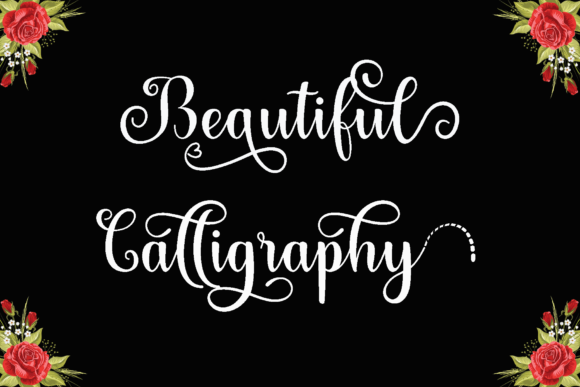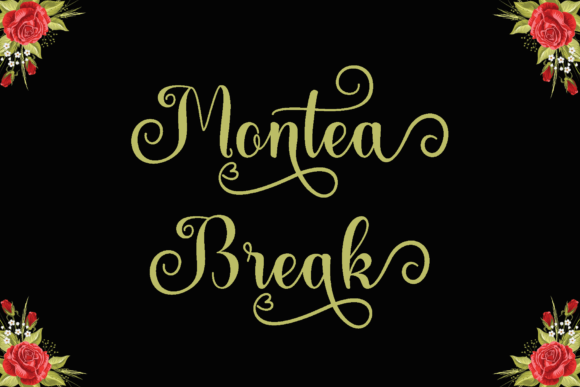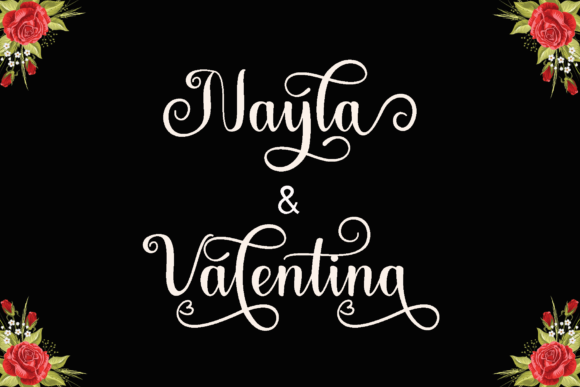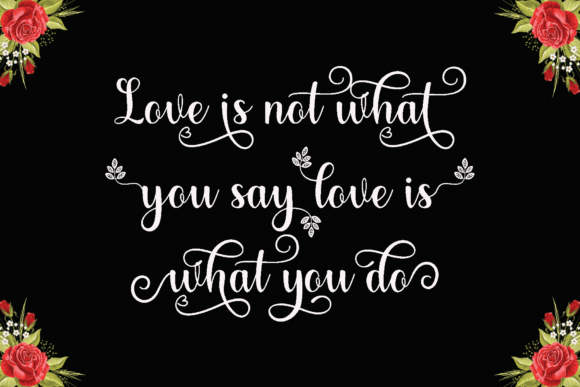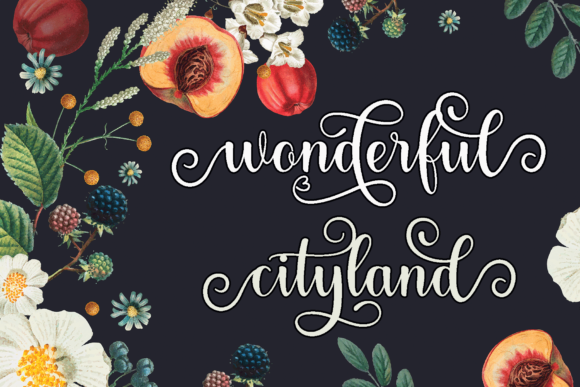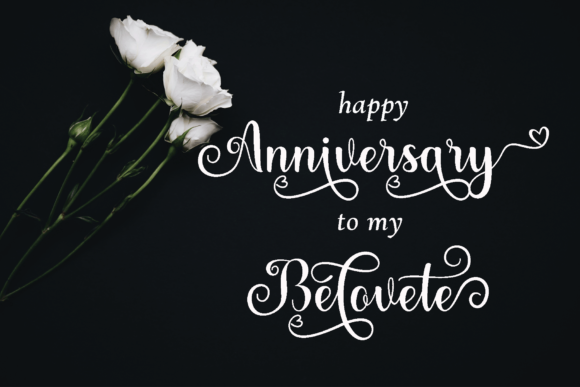
Agalynd Font: Elevate Your Designs with Romantic Elegance
In the world of typography, few fonts capture the essence of romance and sophistication as beautifully as Agalynd. This exquisite calligraphy typeface is designed to add a touch of luxury to any design project, making it a perfect choice for crafters, designers, and anyone looking to infuse their work with elegance. With its unique charm and versatility, Agalynd is poised to become a favorite in your font collection.
The Charm of Agalynd
Agalynd is characterized by its flowing, cursive script that dances along the baseline, creating a sense of movement and fluidity. Each character is meticulously crafted to contribute to the overall harmony of the text, making it a joy to read and behold. The font’s romantic and sweet nature makes it ideal for projects that require a personal touch, such as wedding invitations, greeting cards, and luxury branding.
Key Features of Agalynd
- Romantic and Sweet Calligraphy: Agalynd’s design is deeply rooted in traditional calligraphy, offering a genuine and heartfelt feel to your designs.
- Luxury Appeal: The font’s elegant and sophisticated appearance makes it perfect for high-end branding, packaging, and marketing materials.
- Versatility: From digital platforms to print materials, Agalynd can be used across various mediums, ensuring consistency and quality in your designs.
Applications of Agalynd
The versatility of Agalynd makes it suitable for a wide range of design projects. Here are some of the most popular applications:
- Wedding and Event Design: Use Agalynd to create stunning wedding invitations, save-the-date cards, and event banners that set the tone for a memorable occasion.
- Branding and Packaging: Add a touch of luxury to your brand’s identity with Agalynd, perfect for high-end product packaging, logos, and marketing materials.
- Stationery and Greeting Cards: Elevate your stationery and greeting card designs with Agalynd’s elegant script, making them perfect for special occasions.
- Digital Content: Incorporate Agalynd into your digital content, such as blog headers, social media graphics, and website titles, to give your online presence a sophisticated look.
Tips for Using Agalynd
To make the most of Agalynd, consider the following tips:
- Pair with Complementary Fonts: Combine Agalynd with clean, sans-serif fonts for a balanced and harmonious look.
- Experiment with Colors: While Agalynd looks stunning in classic black and white, don’t be afraid to experiment with colors that match your brand’s palette or the theme of your project.
- Utilize Ligatures and Glyphs: Take advantage of Agalynd’s PUA encoding to explore the variety of ligatures and glyphs available, adding uniqueness to your designs.
Agalynd is more than just a font; it’s a design element that can transform your projects with its romantic and sweet calligraphy. Its luxury appeal, combined with ease of use due to PUA encoding, makes it an invaluable asset for designers and crafters. Whether you’re working on a wedding invitation, a luxury brand’s packaging, or simply looking to add some elegance to your digital content, Agalynd is the perfect choice. Embrace the beauty of Agalynd and elevate your designs to new heights of sophistication and charm.